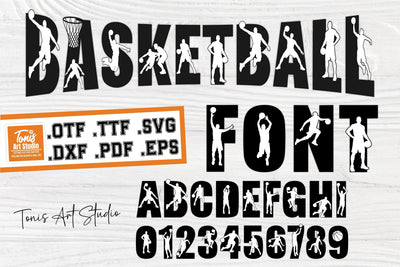
Basketball Font, Sport Alphabet with Player Silhouettes, Bold Athletic Letters
A Dynamic Basketball Alphabet Font SVG OTF, inspired by the energy, motion, and excitement of the game. This bold athletic font features strong block letters filled with basketball player silhouettes in action, creating a powerful and sporty look. Perfect for basketball teams, kids room decor, sports apparel, jerseys, birthday signs, wall art, posters, and Cricut or Silhouette projects. The font is easy to use, highly readable, and ideal for both personal and commercial projects. The digital download includes OTF and TTF installable fonts along with SVG, DXF, EPS, and PDF cut files, allowing full customization and resizing without quality loss. A great choice for basketball lovers, teams, coaches, and creative sports designs.
✔ Basketball Alphabet Font with player silhouettes
✔ Full Alphabet (A–Z), Numbers (0–9) & Symbols
✔ Bold athletic letters with basketball action poses